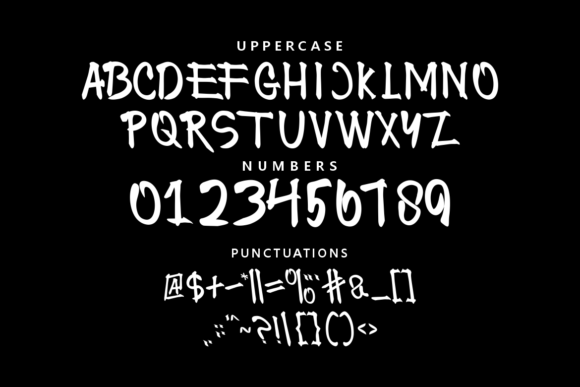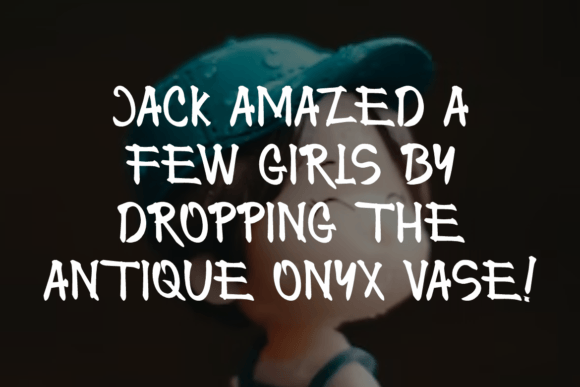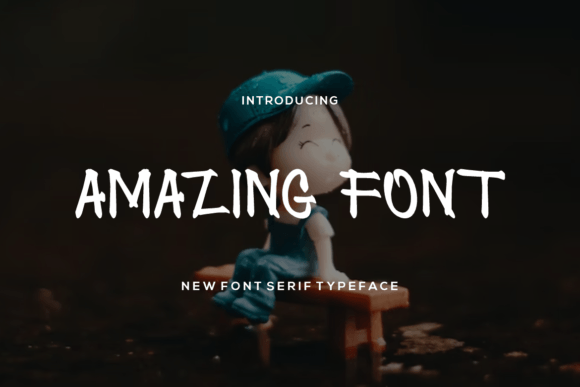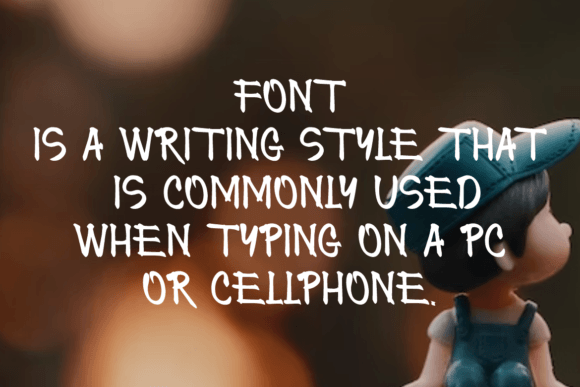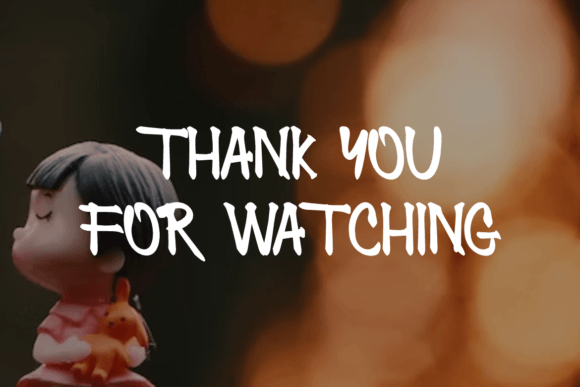
Duckface Font: The Ultimate Handwritten Display Font for Creative Projects
Are you tired of using the same old fonts in your designs? Do you want to add a touch of personality and whimsy to your creations? Look no further than the Duckface Font, a cool and unique handwritten display font that’s sure to elevate your font library. In this article, we’ll dive into the world of Duckface Font and explore its features, benefits, and uses.
What is Duckface Font?
Duckface Font is a handwritten display font that’s designed to add a playful and quirky touch to your designs. With its unique and irregular letterforms, this font is perfect for creating eye-catching headlines, titles, and captions. Whether you’re working on a branding project, a social media graphic, or a craft project, Duckface Font is sure to make your design stand out.
Key Features of Duckface Font
- Unique and Handwritten: Duckface Font is a truly one-of-a-kind font that’s been carefully crafted to give your designs a personal and human touch.
- Display Font: This font is designed for display purposes, making it perfect for headlines, titles, and captions.
- Cool and Quirky: Duckface Font has a fun and playful vibe that’s sure to add a touch of personality to your designs.
- Versatile: Whether you’re working on a digital project or a print project, Duckface Font is versatile enough to use in a variety of contexts.
Benefits of Using Duckface Font
So why should you choose Duckface Font for your next project? Here are just a few benefits of using this amazing font:
- Adds Personality to Your Designs: With Duckface Font, you can add a touch of personality and whimsy to your designs, making them more engaging and memorable.
- Stand Out from the Crowd: This font is truly unique, so you can be sure that your designs will stand out from the crowd.
- Easy to Read: Despite its playful nature, Duckface Font is still easy to read, making it perfect for use in a variety of contexts.
- Time-Saving: With Duckface Font, you can create professional-looking designs in no time, saving you time and effort.
Uses for Duckface Font
Duckface Font is a versatile font that can be used in a variety of contexts, including:
- Branding and Logo Design: Use Duckface Font to create a unique and memorable logo for your brand.
- Social Media Graphics: Add a touch of personality to your social media graphics with Duckface Font.
- Craft Projects: Use Duckface Font to add a playful touch to your craft projects, such as handmade cards and gift tags.
- Digital Design: Duckface Font is perfect for use in digital designs, such as website headers and email newsletters.
Tips for Using Duckface Font
Here are a few tips for getting the most out of Duckface Font:
- Use it Sparingly: Because Duckface Font is so bold and playful, it’s best to use it sparingly to avoid overwhelming your design.
- Pair it with Other Fonts: Experiment with pairing Duckface Font with other fonts to create a unique and visually appealing design.
- Experiment with Colors: Don’t be afraid to experiment with different colors and textures to add depth and interest to your design.
In conclusion, Duckface Font is a cool and unique handwritten display font that’s sure to elevate your font library. With its playful and quirky vibe, this font is perfect for adding a touch of personality to your designs. Whether you’re a designer, crafter, or DIY enthusiast, Duckface Font is a must-have font that’s sure to inspire your creativity.